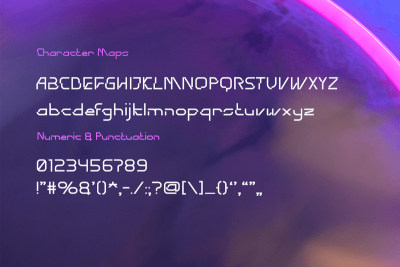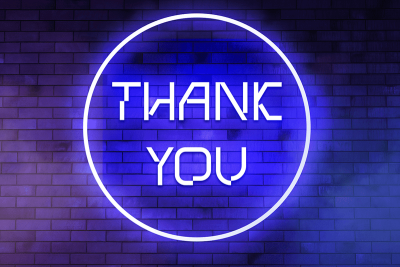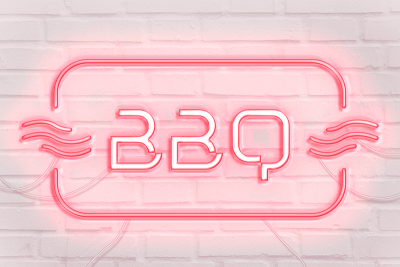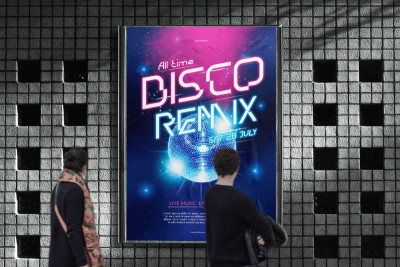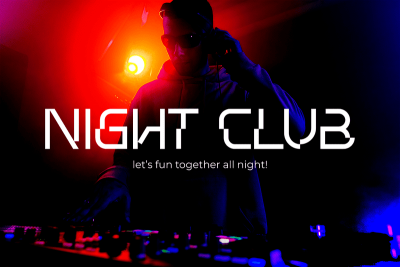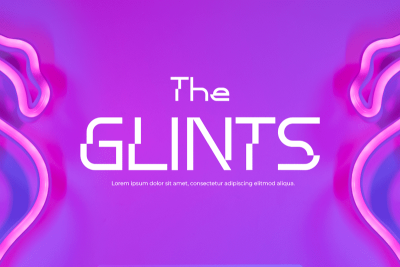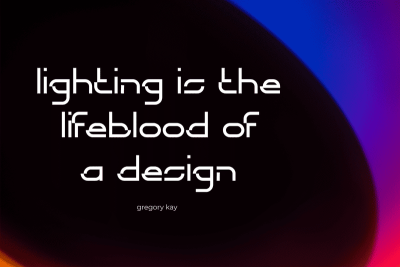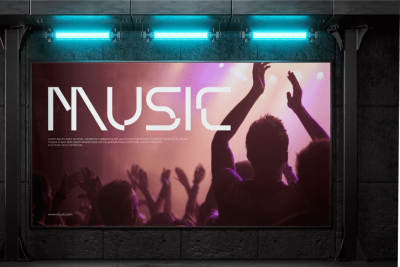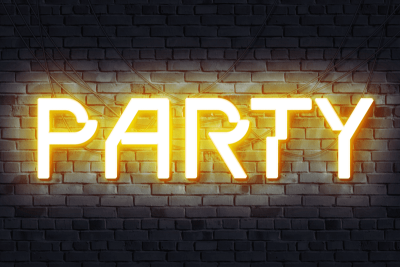
Futuristic Font Systemia is the perfect choice for designers seeking a sleek, modern font with a futuristic edge. Its unique letter structure combines geometric precision and contemporary style, creating an ideal solution for tech-based projects, sci-fi visuals, and digital branding. With sharp lines and innovative curves, Systemia delivers a professional yet forward-thinking aesthetic that makes any design stand out.
This font suits industries like technology, gaming, and advertising perfectly. Its clean design ensures legibility across various platforms while maintaining its bold character. Whether you work on logos, titles, or social media content, Systemia ensures your message is delivered with clarity and style. Additionally, its adaptability to diverse projects makes it a go-to choice for both professional and creative purposes.
Futuristic Font Systemia Designed for Modern Brands and Futuristic Creations
Futuristic Font Systemia meets the needs of modern brands effortlessly. Its striking appearance enhances logos, websites, and packaging, providing a futuristic touch that appeals to technology companies, startups, and creative industries. Systemiaโs precision and versatility empower businesses to showcase innovation and progress effectively.
Additionally, Systemia enhances creative projects like sci-fi posters, gaming titles, and digital artwork. Its futuristic letterforms align perfectly with cyber-inspired designs, modern animations, and sleek advertisements. The font works seamlessly for both headlines and body text, ensuring that every element of your visual composition looks cohesive and captivating.
Moreover, Systemia thrives in digital environments. When used for YouTube thumbnails, app interfaces, or promotional campaigns, its bold and futuristic design draws the audienceโs attention. Designers rely on its clarity and flexibility to enhance creative concepts across various platforms. Its ability to maintain aesthetic appeal in both digital and print media further adds to its practicality.
In conclusion, Futuristic Font Systemia delivers an exceptional combination of modern sophistication and futuristic design. It is ideal for projects that demand a bold, forward-thinking typography solution. With its sharp lines, precise curves, and versatile style, Systemia guarantees your designs will leave a lasting impression. Whether you are creating a tech startup logo or an immersive sci-fi experience, Systemia ensures a flawless execution of your vision.